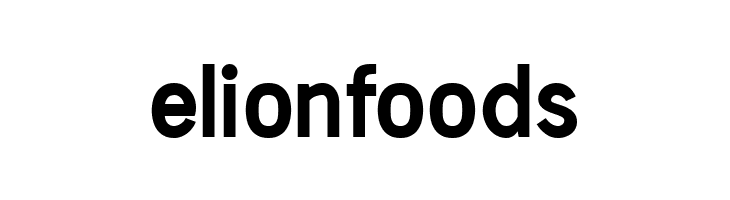
Merriweather Sans Regular Font
A modern sans-serif font with balanced proportions and open forms for optimal readability.
MerriweatherSans-ExtraBold Font
A bold, modern sans-serif font with excellent readability and versatility.
MerriweatherSans-Bold Font
A bold, modern sans-serif font with excellent legibility and versatility.
Amatley Font